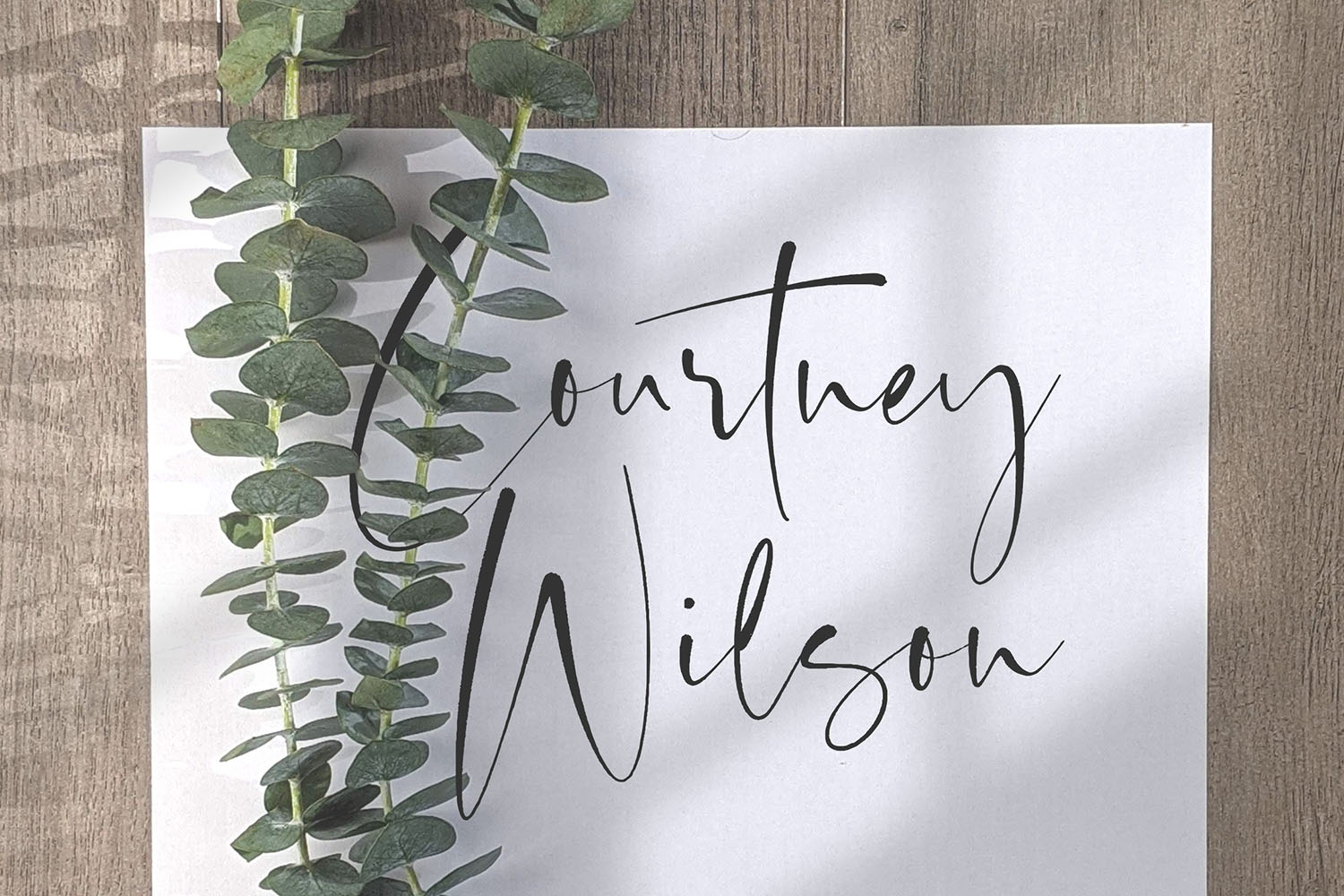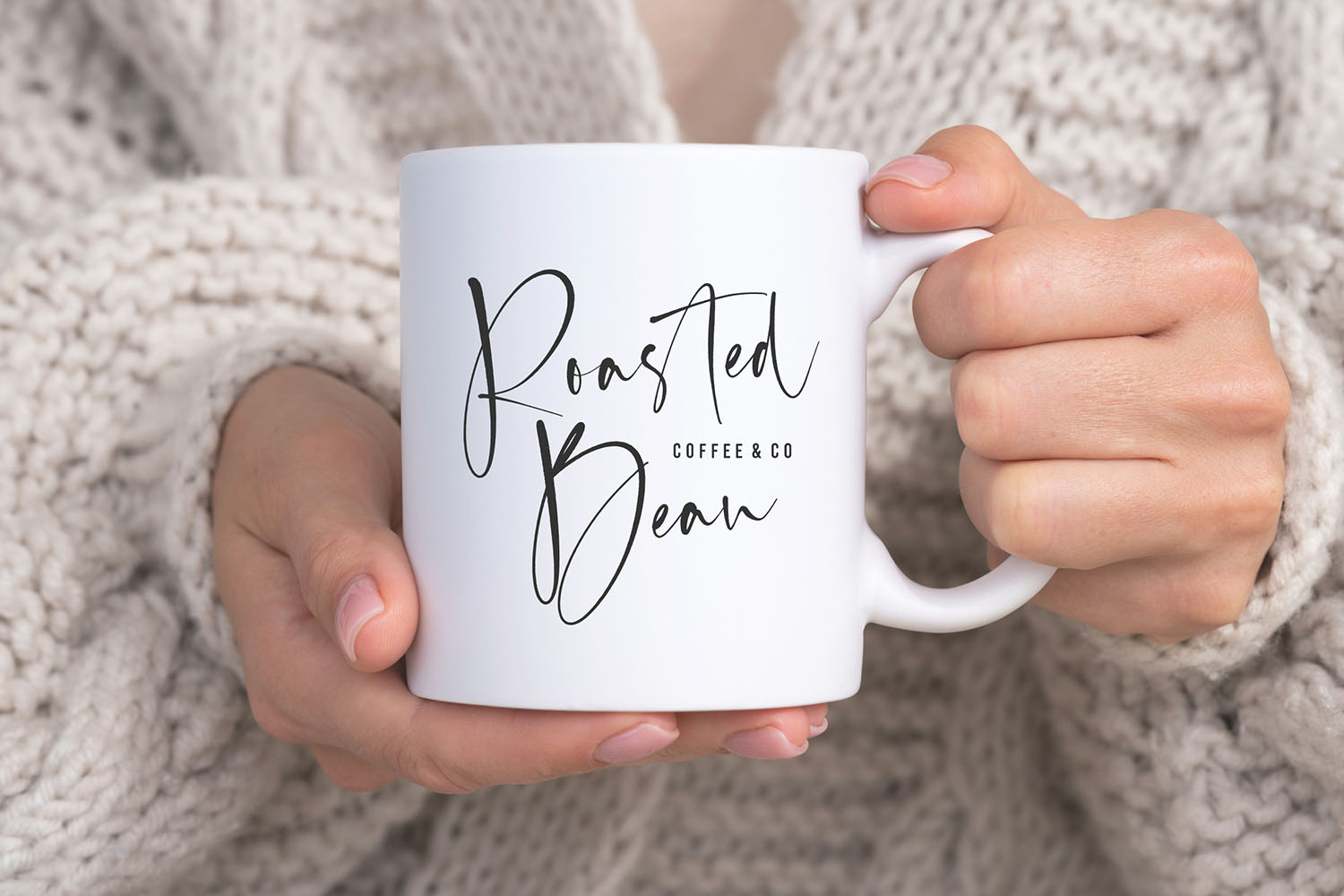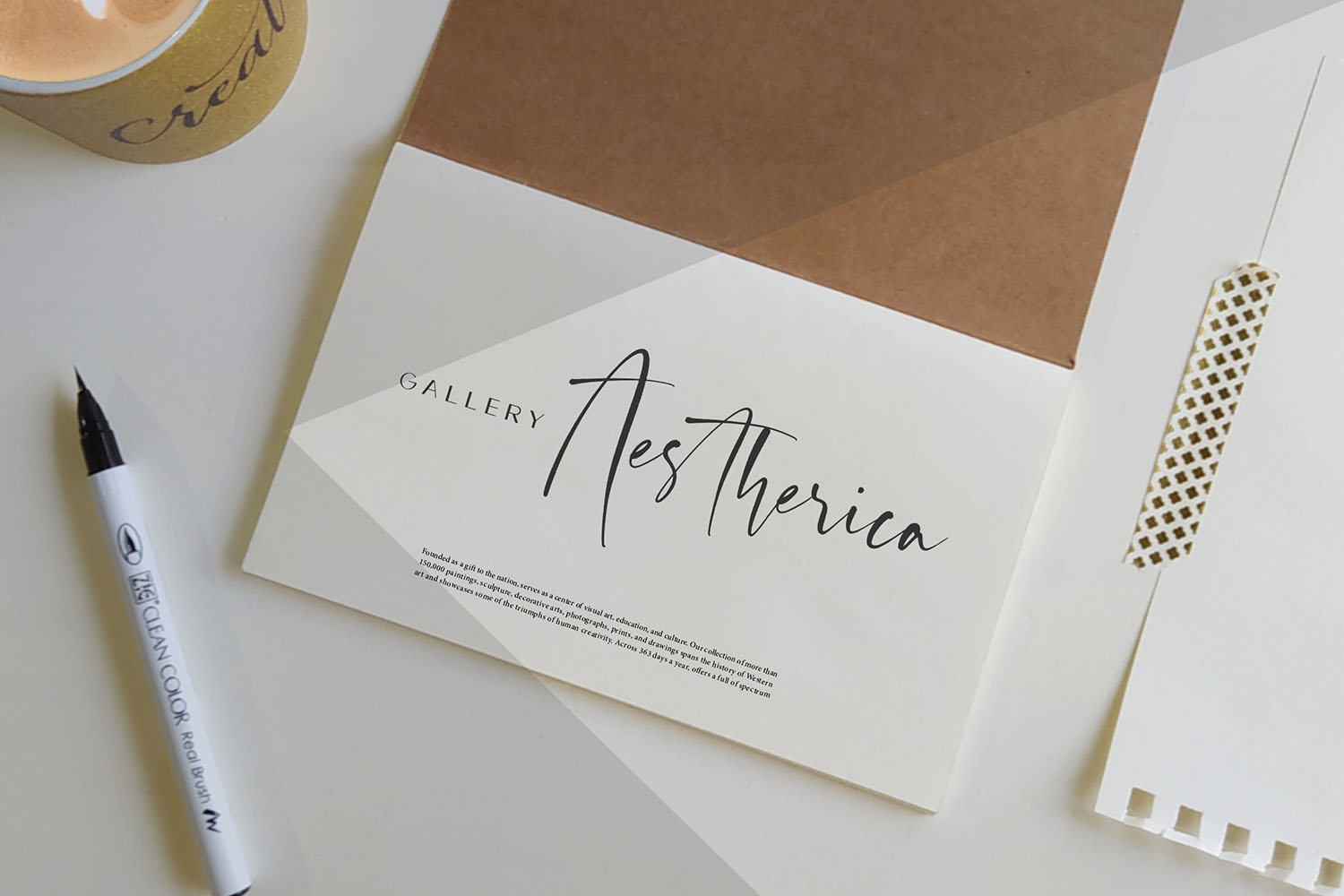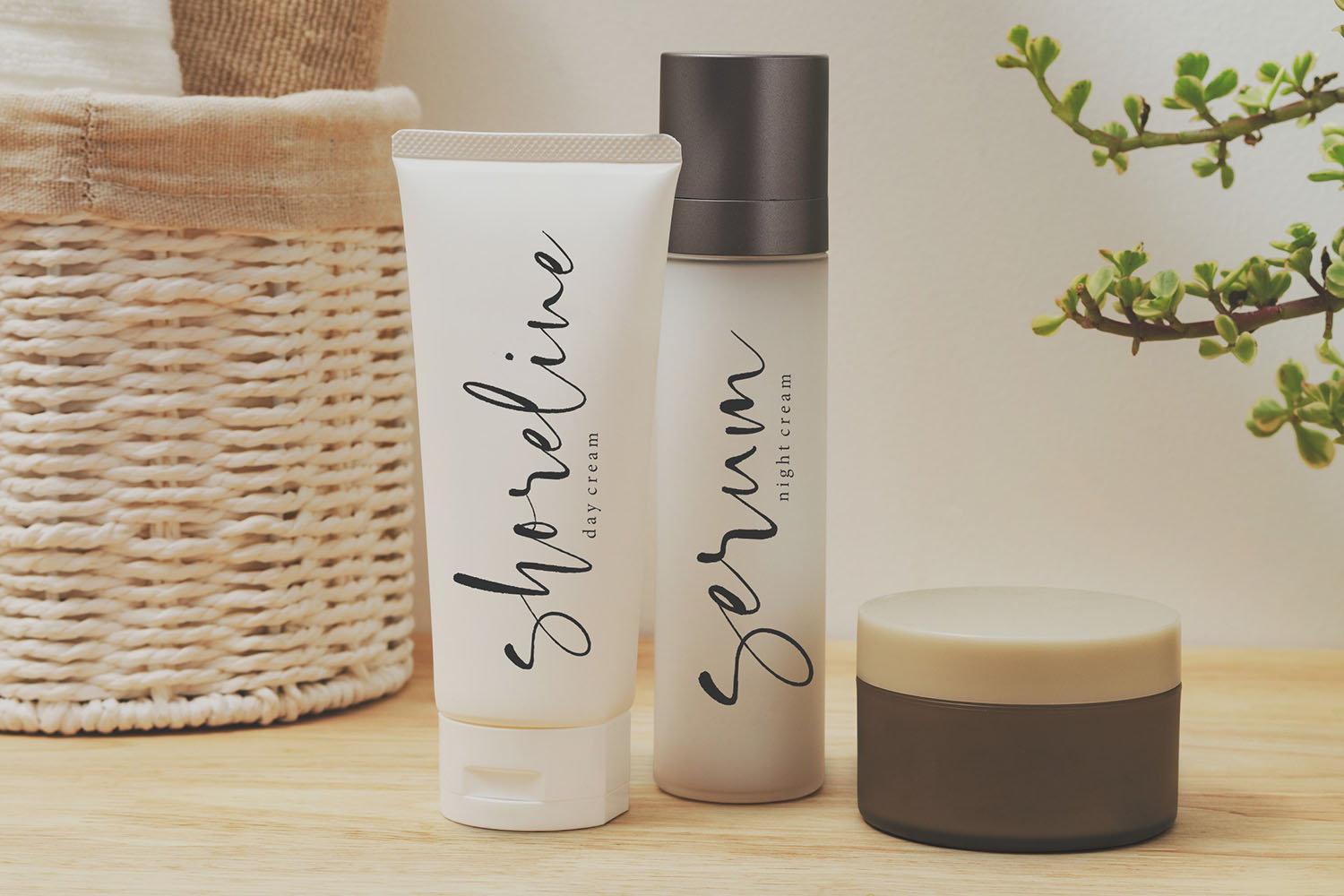
Auguste Boutique Free Font
Introducing Auguste Boutique Free Font – a mesmerizing script font that adds a touch of enchantment to any project. A wonderful addition to your font library, this versatile font holds the power to elevate any creation, regardless of the topic or theme. Embrace the charm of Auguste Boutique and watch your designs come alive with captivating allure. Make it a staple in your creative toolkit and witness the magic it brings to your work. This free typeface was designed by a talented Balpirick Studio. If you like it don’t forget to check out the full version.